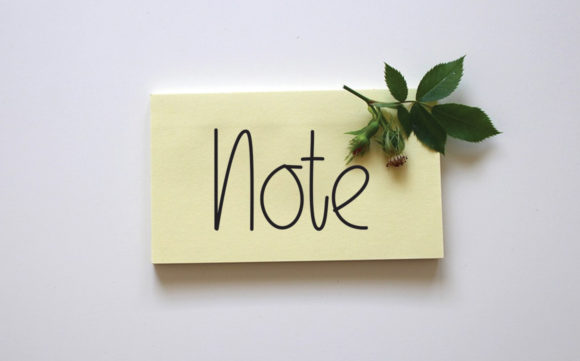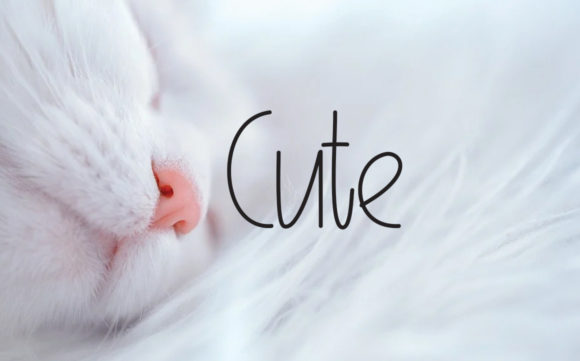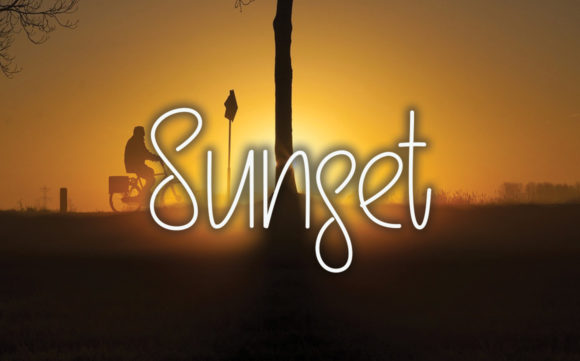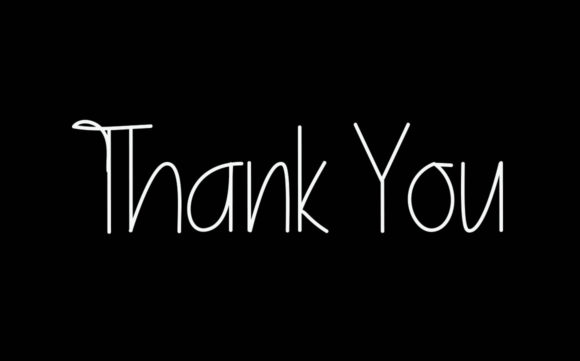
Discover the Elegance of House Minimalist Font
Have you ever stared at a blank page, waiting for inspiration to strike, only to have a single word jump out at you in perfect, flowing script? That’s the magic of House Minimalist Font. This elegant script font is designed to bring a touch of timeless classic calligraphy to your projects, and its versatility is unmatched.
| 👤 Author | Garcio |
House Minimalist Font is more than just a font – it’s a tool for designers to elevate their work and make a lasting impression. With its balanced and varied style, it’s perfect for creating beautiful typography that adds depth and sophistication to any project. Whether you’re a seasoned designer or just starting out, House Minimalist Font is a valuable addition to your toolkit.
- Font Style: Display, Sans-Serif
- Unique Characteristic: Designed with clean lines, simple shapes, and minimal ornamentation to convey a sense of modernity and sophistication
Designer Review: House Minimalist Font
Overall, I’d say the House Minimalist Font has some great qualities, but it also has some limitations. Let’s dive in!
- Simple and clean design: The font is exactly what it promises – minimalist. It’s perfect for designs where you want to keep things simple and uncluttered.
- Legibility: The font is highly legible, even at smaller font sizes, which makes it suitable for body text.
- Monolinear design: The font’s monolinear design makes it look consistent and harmonious, which is great for branding and logos.
- Lack of expressiveness: The font’s simplicity can also make it feel a bit flat and unexpressive, which might not be suitable for designs that need to convey emotion or personality.
- No bold or italic variants: The font only comes in regular weight, which can limit its versatility in certain design situations.
- May not work well for display text: While the font is great for body text, it might not be the best choice for display text, such as headings or titles.
Overall, I think the House Minimalist Font is a solid choice for designers who need a simple, clean font for body text. However, it may not be the best fit for designs that require more expressiveness or versatility.
The House Minimalist Font is a versatile and modern sans-serif font ideal for various design projects. To use it, follow these steps:
1. Use the House Minimalist Font for headings and titles to add a touch of modernity to your designs.
2. Experiment with different font sizes and colors to create visual hierarchy and emphasis.
3. Pair the font with other minimalist fonts or bold fonts to create a unique and eye-catching design.
The House Minimalist Font is ideal for:
- Website headers and footers
Alternatives to House Minimalist Font
Open Sans is a clean and modern sans-serif font. It’s suitable for a wide range of applications, from body text to headings. Use it for digital products, websites, and mobile apps. Open Sans is more versatile than House Minimalist Font, with a wider range of weights and styles available.
Lato is a elegant and sophisticated sans-serif font. It’s perfect for branding and corporate identity projects. Use it for logos, business cards, and other print materials. Lato has a more refined feel than House Minimalist Font, making it suitable for high-end projects.
Montserrat is a geometric sans-serif font inspired by urban typography. It’s great for digital products, websites, and mobile apps. Use it for modern and edgy designs. Montserrat has a more angular feel than House Minimalist Font, making it suitable for projects that require a bold and futuristic look.
Inter is a modern sans-serif font designed for digital use. It’s suitable for body text, headings, and titles. Use it for websites, mobile apps, and digital products. Inter is more legible than House Minimalist Font, making it suitable for projects that require clear and easy-to-read typography.
Project Ideas Using House Minimalist Font
Create a visually striking poster featuring a thought-provoking quote in House Minimalist Font. This font’s clean lines and geometric shapes will add a touch of sophistication to the design.